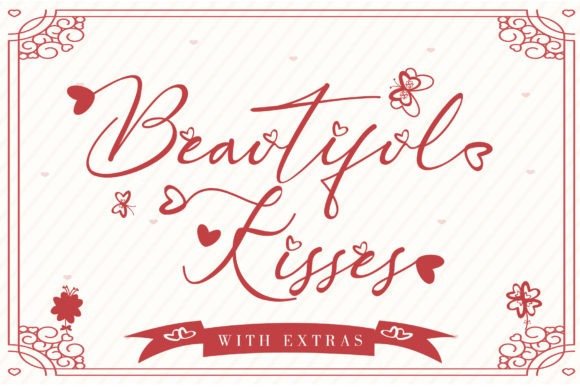
Beautiful Kisses Script Font
Dear All. This is new lovely Script Calligraphy handmade style font. Brand new stylish calligraphy font to give your new design a fresh look at earlier this year. Introducing Beautiful Kisses Font. It’s an extraordinary script and the perfect font to express your love. “Love must always be worthy of happiness”.
It has an amazingly beautiful and elegant style. Bring modern feels to your branding design, logo, invitation, wedding design, special day, Instagram, social media design, pinterest cover design, web and blog design, best for big size text as header and still lovely for body text, printing design and more.